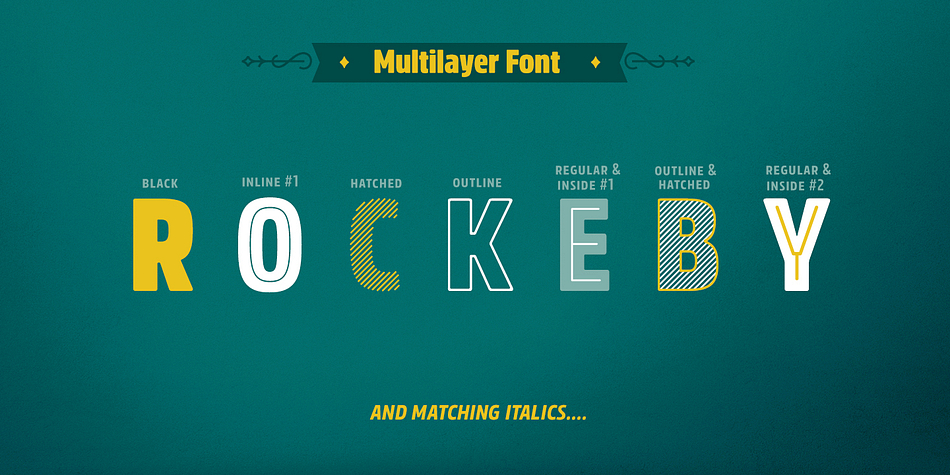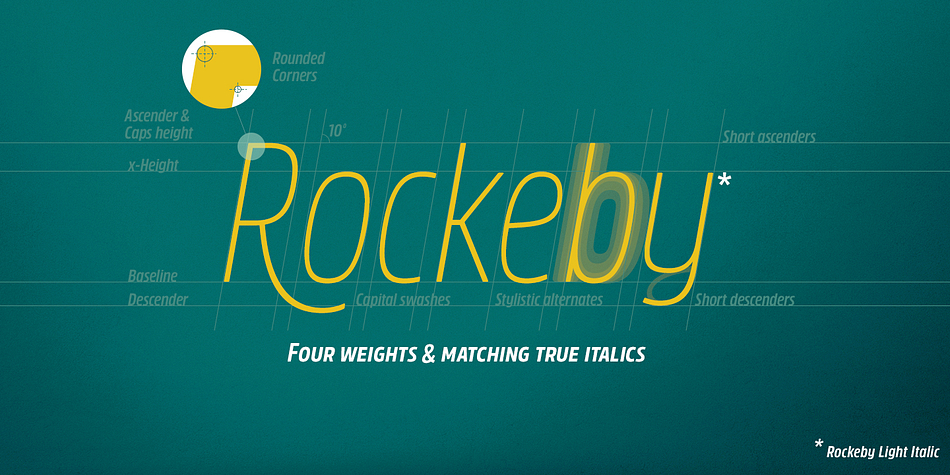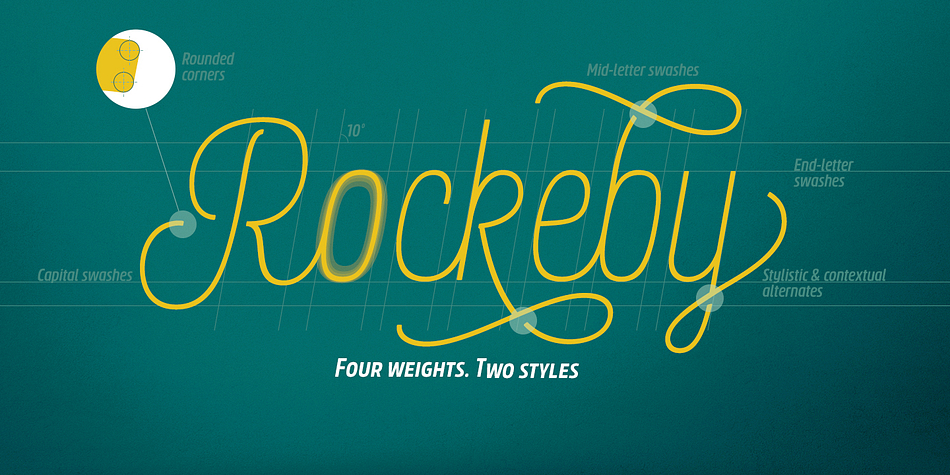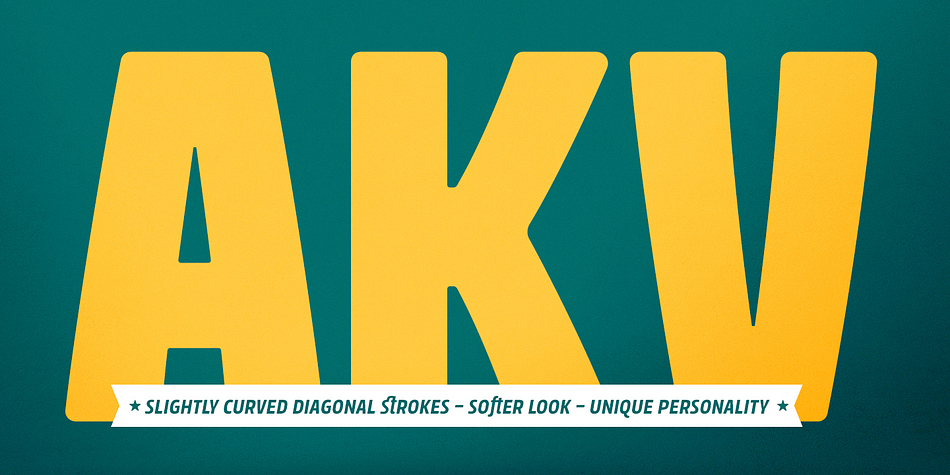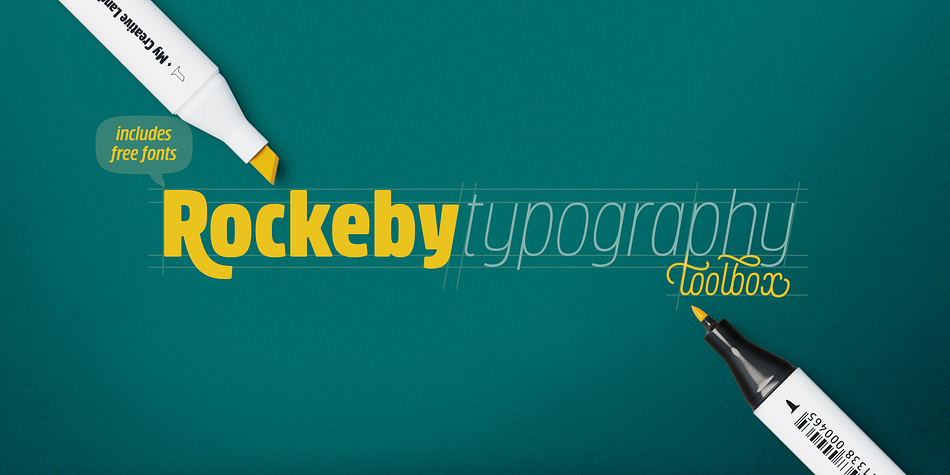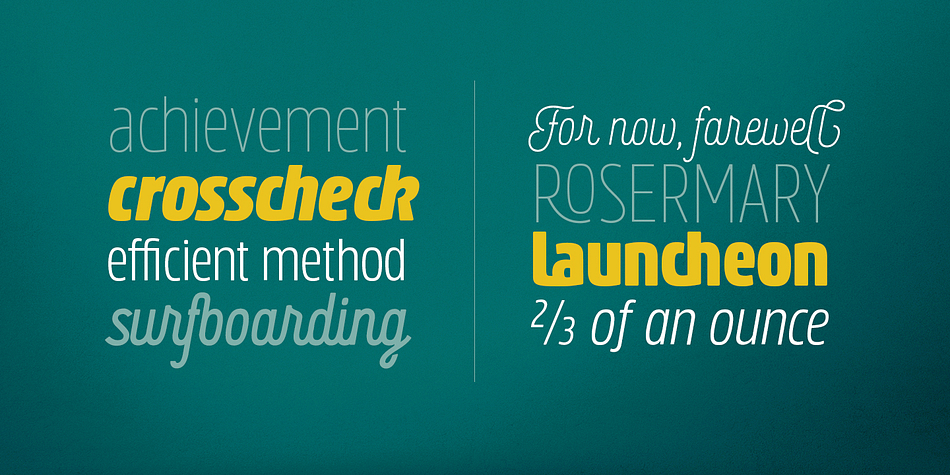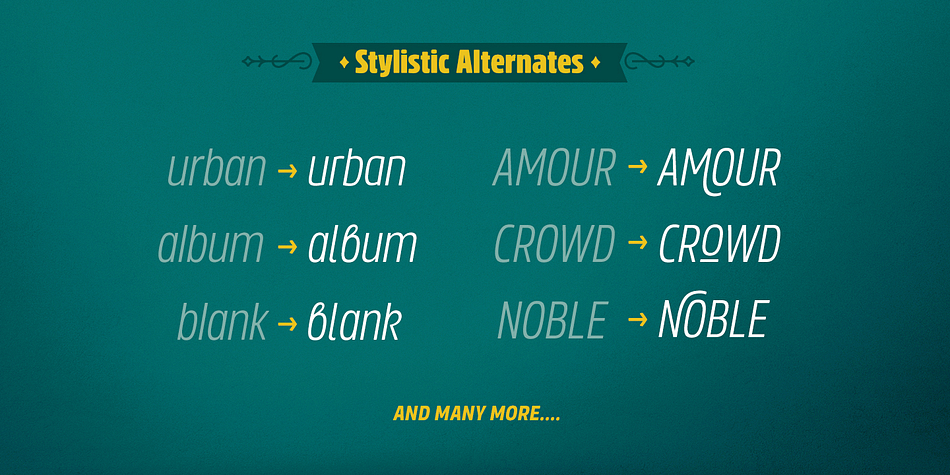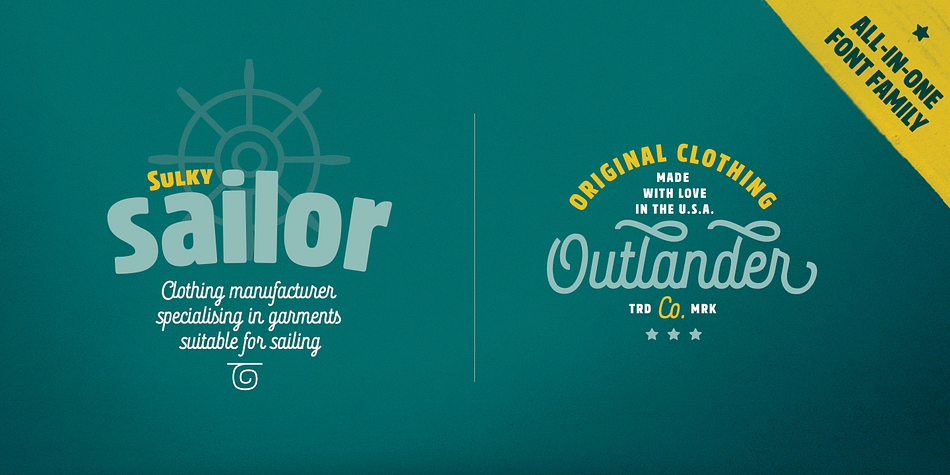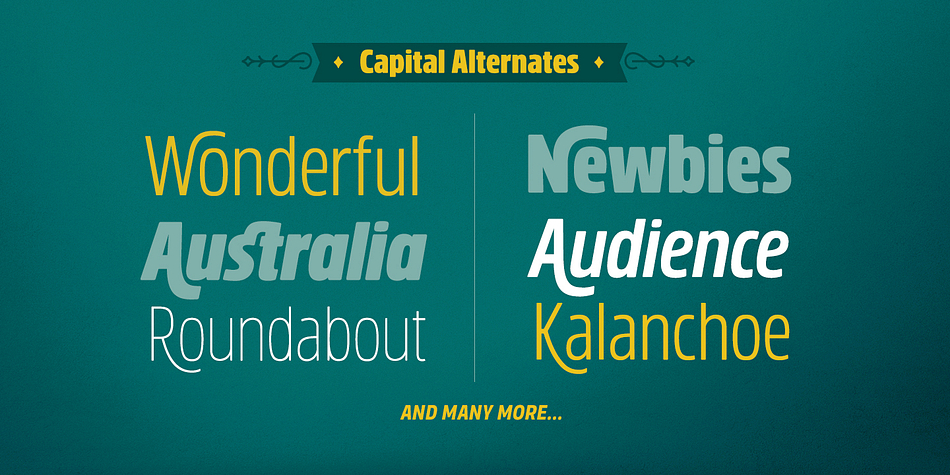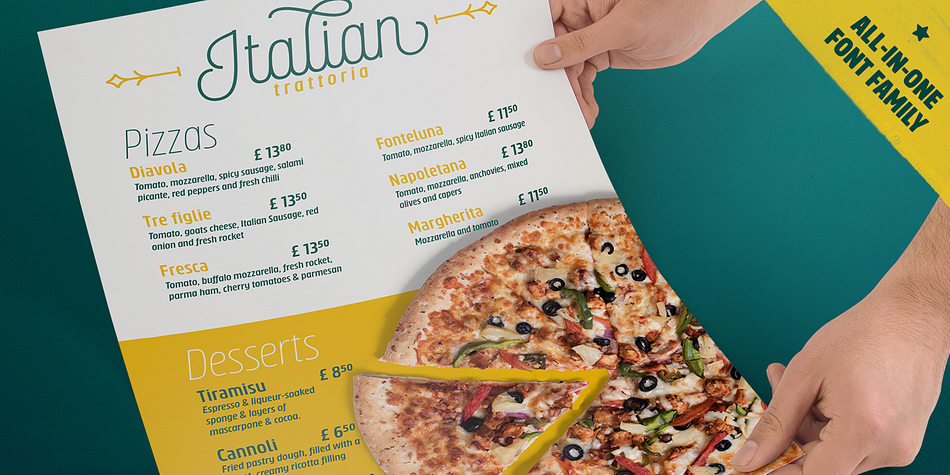
Designed by Elena Genova, Rockeby is a multiple classification font family. This typeface has thirty-two styles and was published by My Creative Land.
Please welcome the new grotesque family; slightly more geometric than Block Berthold but much softer than the industrial Din Next, Rockeby includes a lot of stylistic alternates and ligatures to help add character to any type of design. The slightly curved diagonal strokes give the sans serif fonts it’s unique personality and soft look.
Even more - the family has two scripts (4 weights each) which will enhance the design even more. Combining italic with the script has never been easier - they both have the same italic angle. These scripts also benefit from contextual alternates, slashes and ligatures. And last but not least, the family also includes Extras fonts (which also have 4 weights) which can further enhance any design you are creating.